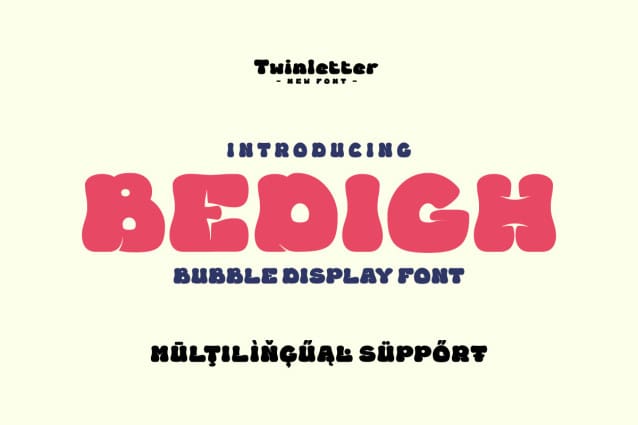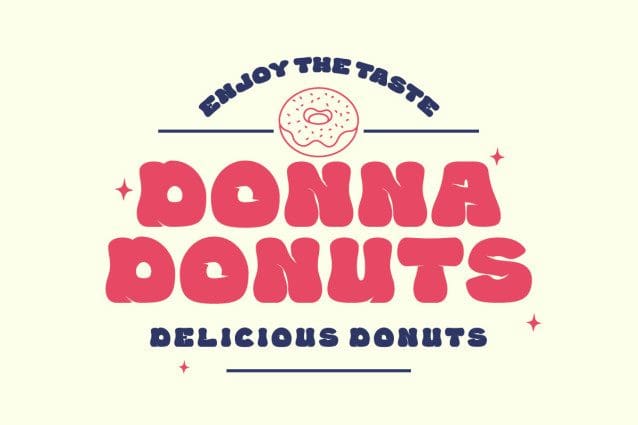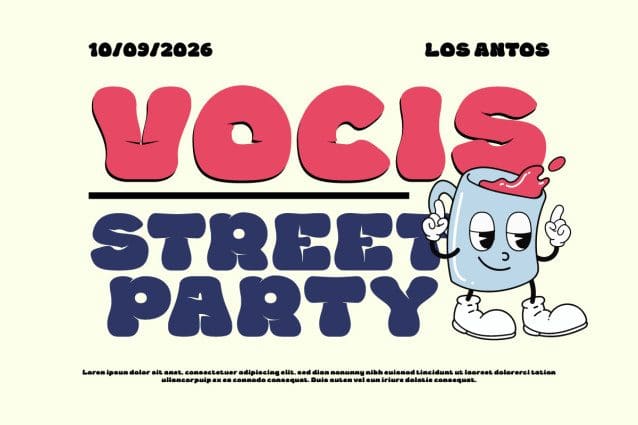
Bedigh Buble Font
Bedigh Buble Font, this Playful Display Font is brimming with energy and personality, with each letter dancing across the canvas in a delightful display of creativity.
Whether you’re creating greeting cards, posters, or children’s book illustrations, Bedigh adds a splash of color and charm to every design. Its whimsical vibe and dynamic appearance make it perfect for capturing attention and sparking excitement. Incorporate Bedigh into your designs to infuse them with a sense of fun and lightheartedness that resonates with your audience.